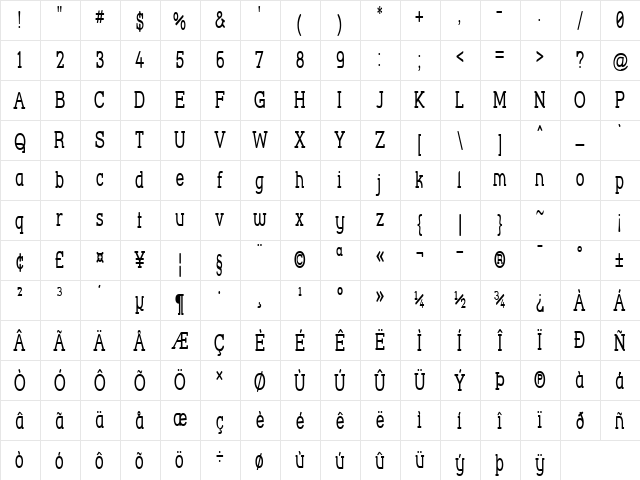
Street Corner Slab Narrow Regular
Design Context for Street Corner Slab Narrow Typeface
Street Corner Slab Narrow combines the readability of serif typography with the visual weight of a slab construction, resulting in a typeface that feels both authoritative and approachable. The condensed width makes it efficient for tight spaces without sacrificing legibility.
Suited to magazines, political campaign materials, bold packaging, and any setting where authority matters.
Pro Tip: Use Street Corner Slab Narrow for headlines and subheadings where its slab serifs can make an impression. It also holds up well in mid-size body copy thanks to its sturdy construction.